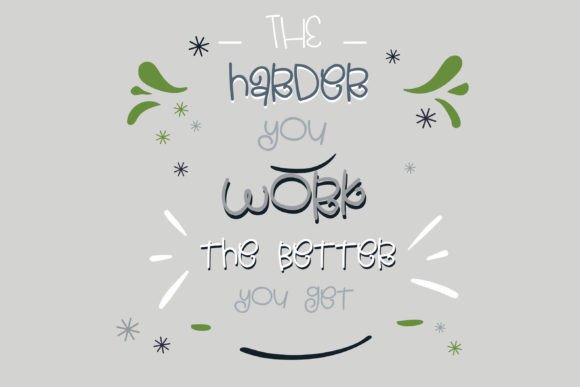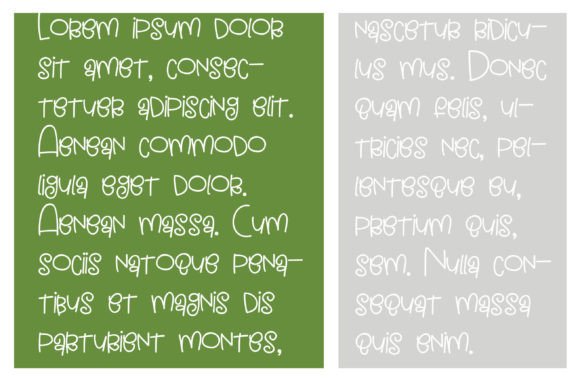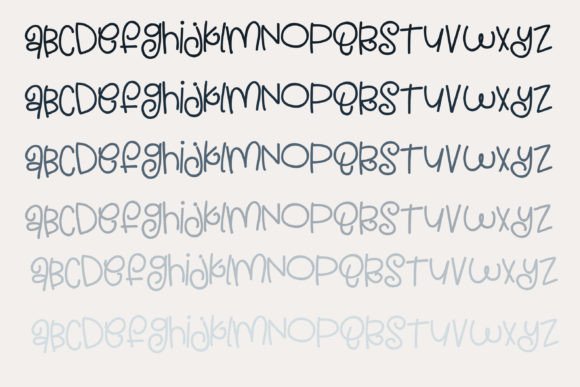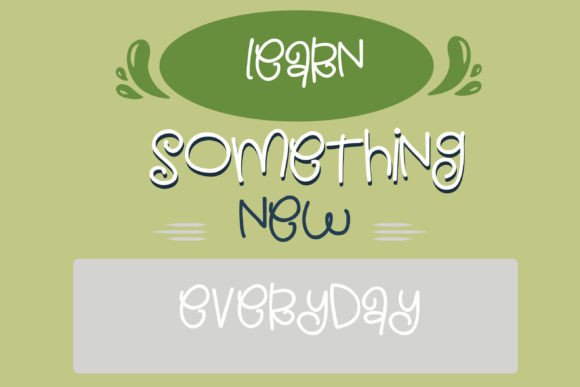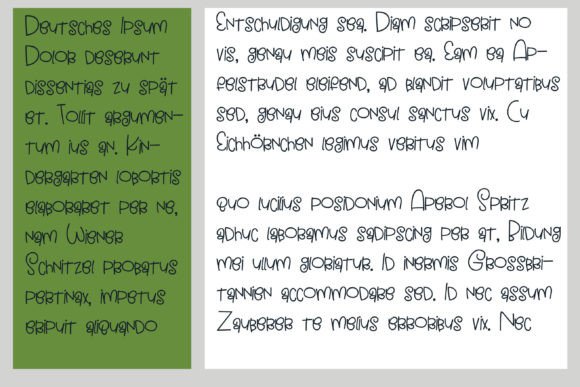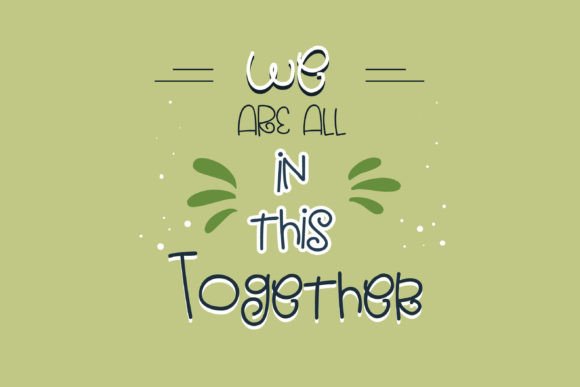
The Magic of Handwritten Typefaces
Have you ever sat down with a blank sheet of paper and a pen, letting your imagination run wild as you scribble down ideas? That’s exactly what happened when the creators of the Fraptional Font envisioned this youthful and whimsical hand-written sans serif. Its purpose is to bring a touch of playfulness to various applications, from greeting cards to headlines.
The Fraptional Font is a game-changer for designers looking to add a personal touch to their projects. Its versatility makes it perfect for a wide range of uses, and its unique character is sure to capture the attention of your audience. Whether you’re a seasoned pro or just starting out, the Fraptional Font is a valuable addition to your toolkit.
- Unique Characteristics: Fraptional Font features a unique blend of geometric and organic elements, resulting in a distinctive and modern aesthetic.
Fraptional Font Review
Overall, I was quite impressed with the Fraptional Font, but it’s not without its flaws. Here’s a breakdown of what I liked and didn’t like.
- Unique design: The Fraptional Font has a distinctive, futuristic look that sets it apart from more traditional fonts.
- High legibility: Despite its unconventional design, the font is surprisingly easy to read, even at smaller sizes.
- Overuse of ligatures: While the ligatures are a nice touch, they can sometimes be overused, leading to awkward spacing and readability issues.
Overall, I think the Fraptional Font is a great choice for anyone looking for a unique and modern font. While it has some limitations, its customization options and high legibility make it a solid choice for designers and creatives.
Tips for Getting the Most Out of Fraptional Font
Use Fraptional Font to create unique and eye-catching text effects. Experiment with different font sizes, colors, and styles to achieve the desired look.
Fraptional Font is ideal for:
- Designing posters and flyers.
- Creating social media graphics.
- Developing branding materials.
Alternatives to Fraptional Font
Playfair Display is an elegant and luxurious serif font. It is ideal for use in high-end branding, advertising, and editorial designs where a touch of sophistication is required. When to use: Luxury branding, high-end advertising, and editorial designs.
Comparison: While Fraptional Font is a playful, handwritten font, Playfair Display is a classic, elegant serif font. Playfair Display is more formal and sophisticated than Fraptional Font.
Great Vibes is a modern, elegant script font. It is perfect for use in designs where a touch of sophistication and elegance is required. When to use: Luxury branding, high-end advertising, and editorial designs.
Comparison: Great Vibes is similar to Fraptional Font in its elegance and sophistication, but it has a more refined and polished look. Great Vibes is more suitable for formal designs, while Fraptional Font is more playful.